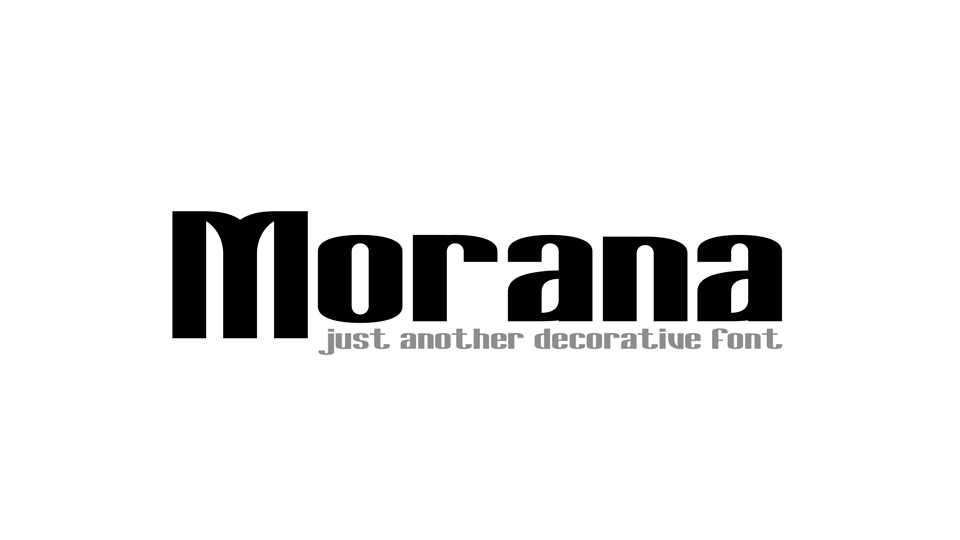
Download Morana font, a bold and high contrast decorative typeface with Latin and Cyrillic support. Morana works best for headlines, posters and short text blocks.
Designer: Vesko Radic